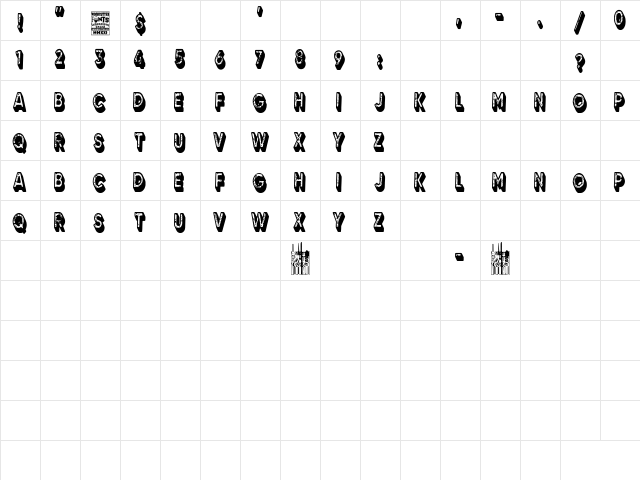
Complete 3D Grunge Studio Regular glyph index. Displaying only characters natively supported by 3D Grunge Studio Regular font.
3D Grunge Studio embraces imperfection - its rough, textured character adds raw authenticity to designs that want to feel lived-in and unconventional.
Pro Tip: Use 3D Grunge Studio at larger sizes where the texture and irregularity of each letterform can be clearly seen - it loses its character at small sizes.